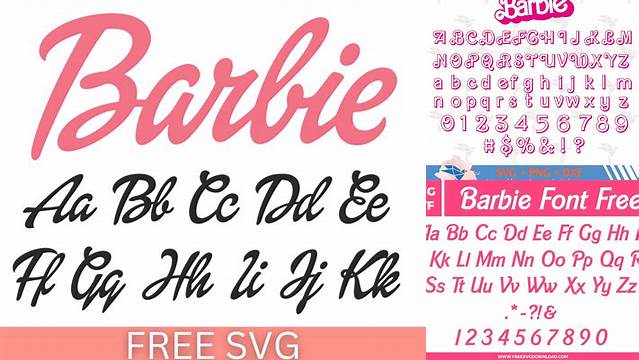
Barbie Font SVG: Free Download For Your Projects
Hey there, font enthusiasts and Barbie lovers! Are you looking to add a touch of Barbie magic to your projects? You've come to the right place! In this article, we're diving deep into the world of Barbie font SVGs, showing you where to find them, how to download them for free, and how to use them in your creative endeavors. Whether you're designing invitations, creating social media graphics, or working on a special Barbie-themed project, the right font can make all the difference. So, let’s get started and explore the fabulous world of Barbie fonts!
What is Barbie Font?
Before we jump into the nitty-gritty of downloading and using Barbie fonts, let's first understand what we mean by “Barbie font.” The iconic Barbie logo and branding have evolved over the years, but the font most associated with Barbie is a stylish, cursive typeface that exudes fun, elegance, and a touch of whimsy. This font is instantly recognizable and adds a playful yet sophisticated flair to any design.
The actual font used in the official Barbie logo is a customized typeface, meaning it was created specifically for the brand. However, several fonts closely resemble the Barbie font and can be used for personal and commercial projects. These fonts capture the essence of the Barbie brand, making them perfect for a wide range of applications.
Key Characteristics of the Barbie Font
- Cursive and Script: The font is primarily cursive, with flowing letters that connect seamlessly. This gives it an elegant and handwritten feel.
- Playful and Whimsical: The curves and swashes in the font add a touch of playfulness and whimsy, making it suitable for designs targeting a younger audience or those looking for a fun, vibrant aesthetic.
- Elegant and Stylish: Despite its playful nature, the Barbie font also has an element of elegance and style. The refined letterforms and balanced design make it versatile for various applications.
- Bold and Recognizable: The font is typically bold, ensuring it stands out and is easily recognizable. This is crucial for branding and making a strong visual impact.
Understanding these characteristics will help you identify fonts that capture the Barbie spirit and are suitable for your projects. Now, let’s explore where you can find these fonts for free.
Where to Find Free Barbie Font SVGs
2. SVG and Graphics Websites
Websites that offer SVG files and other graphics often include fonts as part of their design resources. These can be great places to find Barbie font SVGs:
- Free SVG Websites: Numerous websites offer free SVG files, and sometimes these include font files as well. Look for sites that specialize in fonts or have a dedicated font section. These sites are perfect for getting all sorts of design elements, you know?
- Design Bundles: Design Bundles often has free design resources, including fonts, as part of their promotional offerings. Keep an eye on their freebie section for potential Barbie font finds. They're always updating their freebies, so it's worth checking often!
3. Online Design Communities and Forums
Online communities and forums dedicated to design and crafting can be excellent places to discover free Barbie fonts. Members often share resources and recommendations:
- Reddit: Subreddits like r/Freebies or r/graphic_design may have users sharing links to free fonts. It’s a great way to find hidden gems and get recommendations from fellow designers. Trust me, Reddit can be a lifesaver!
- Creative Market: While Creative Market is primarily a marketplace for premium design assets, they occasionally offer free goods, including fonts. Sign up for their newsletter to stay informed about freebies. They have some seriously amazing stuff!
Whether you’re designing invitations, creating social media graphics, crafting personalized gifts, or working on branding projects, the right Barbie font can make all the difference. So, go ahead, download those fonts, and let your creativity shine! And remember, the world is your runway, so make it fabulous!